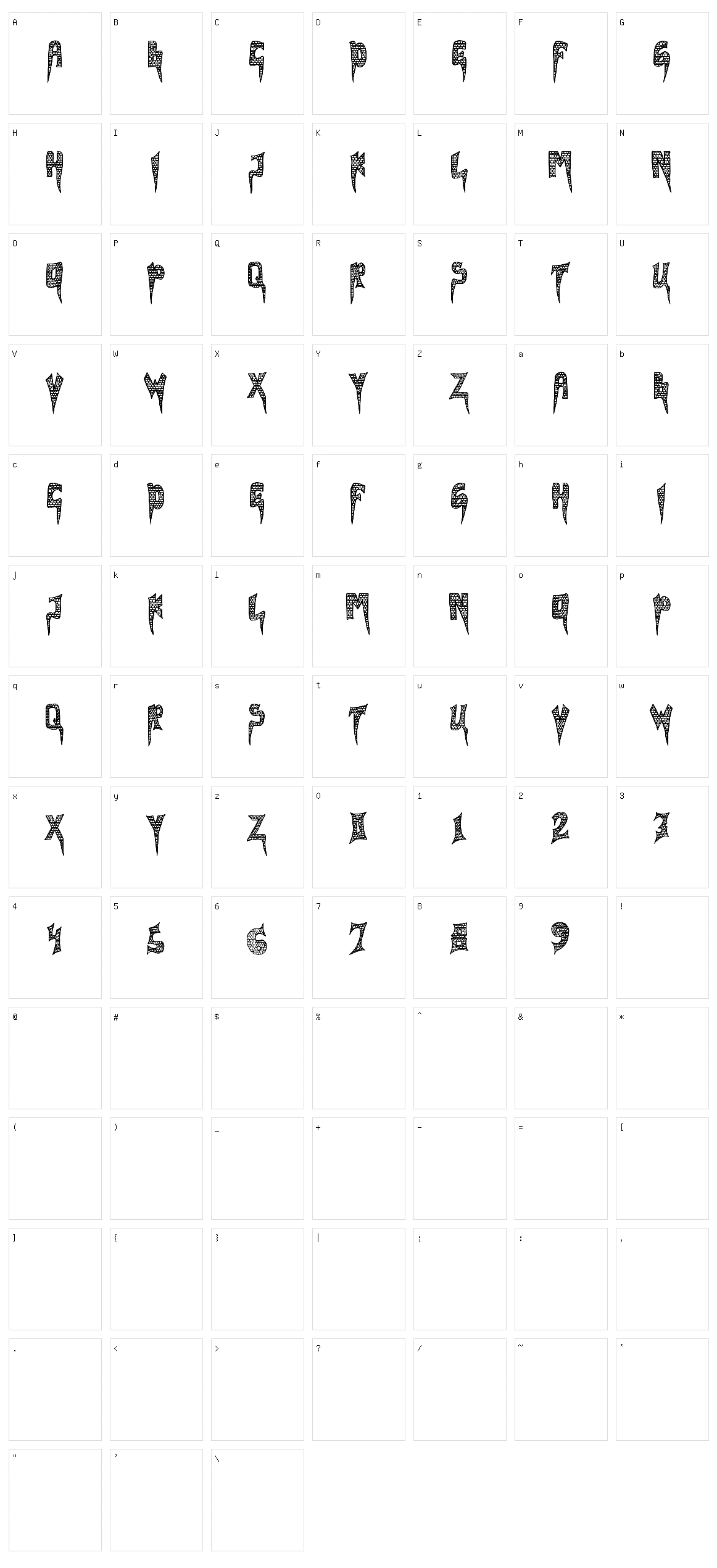
The free font Vaganza is carefully designed by Ditya Ananto, showcasing a thoughtful balance of creativity and usability and falls under the Horror font style. When you download the ZIP file, it contains only 365.67 KB of font files, making it lightweight and quick to download. Please review the license details below to understand permitted usage and distribution rights. If license information is not available, we recommend using this font for personal projects only or contacting the author directly for commercial usage permissions.